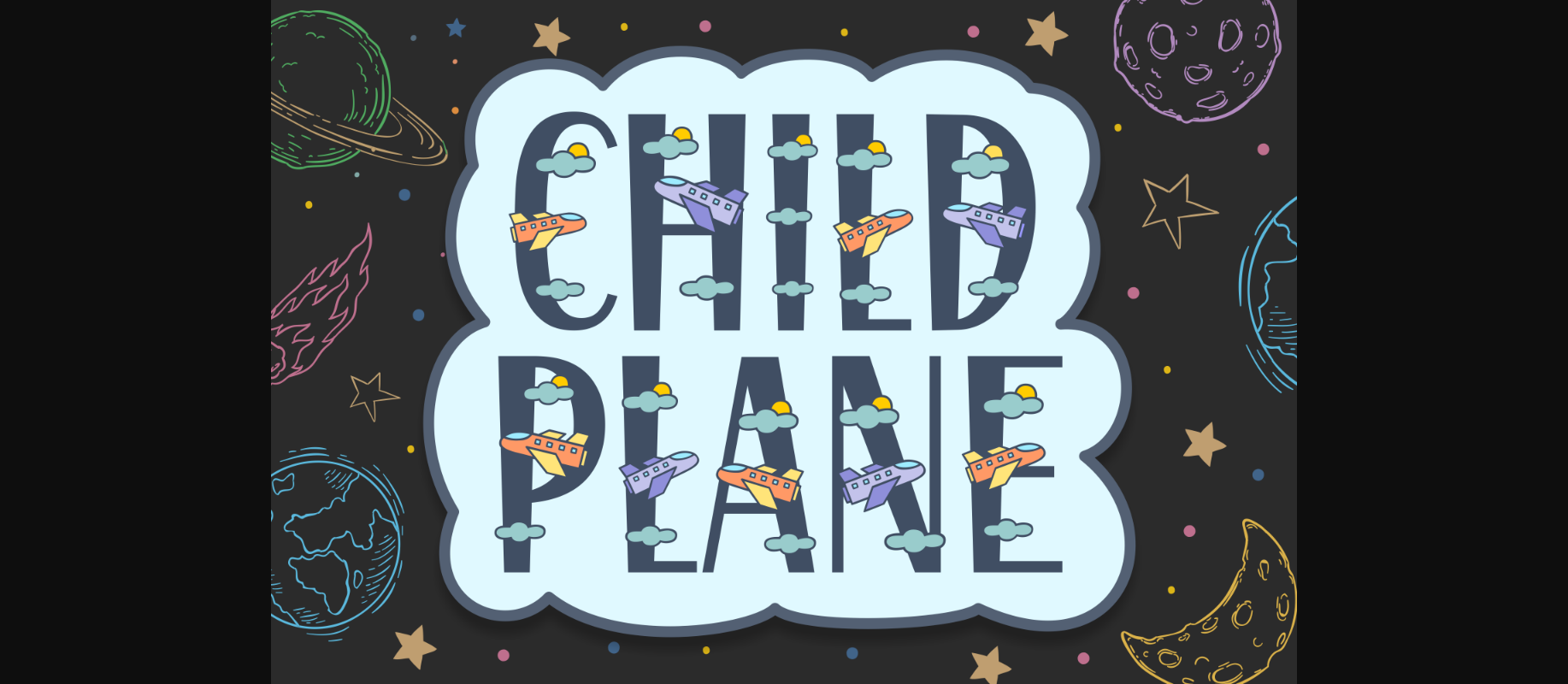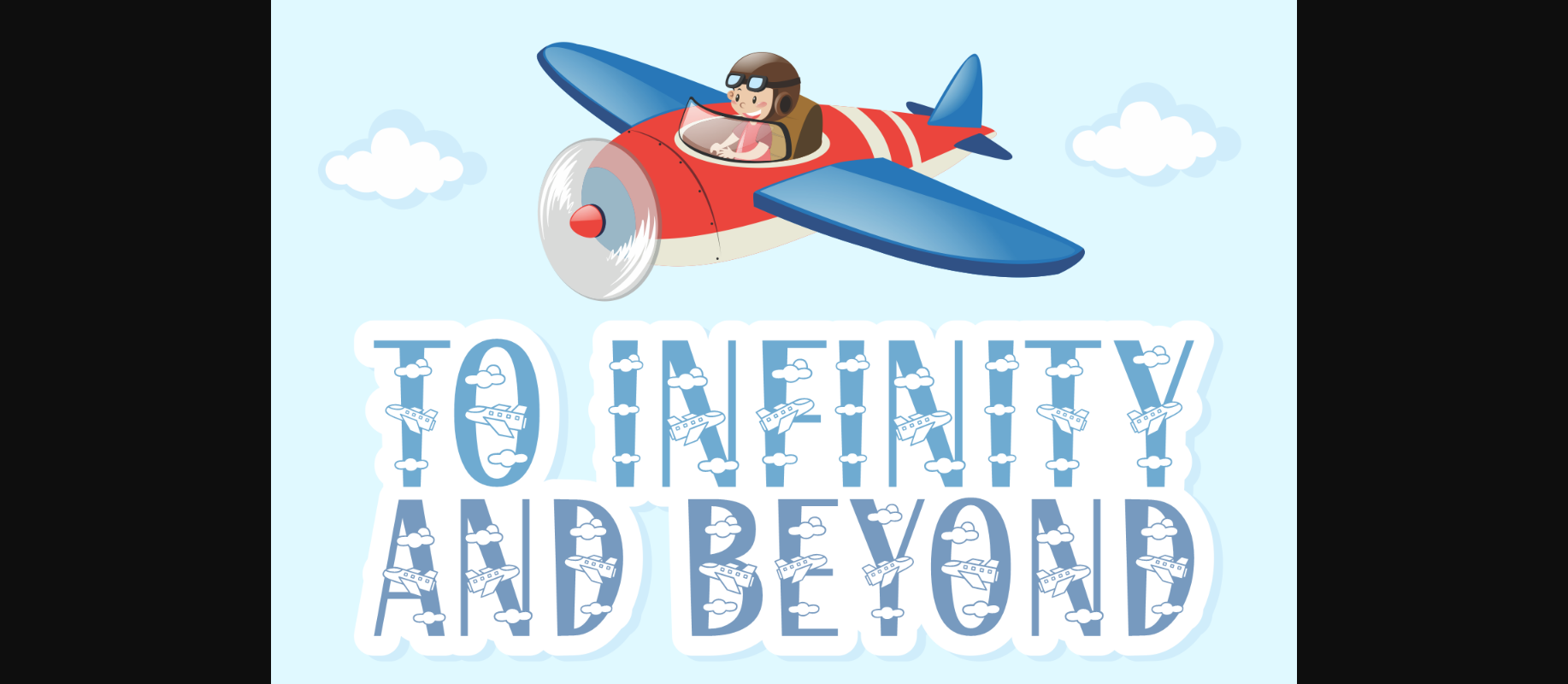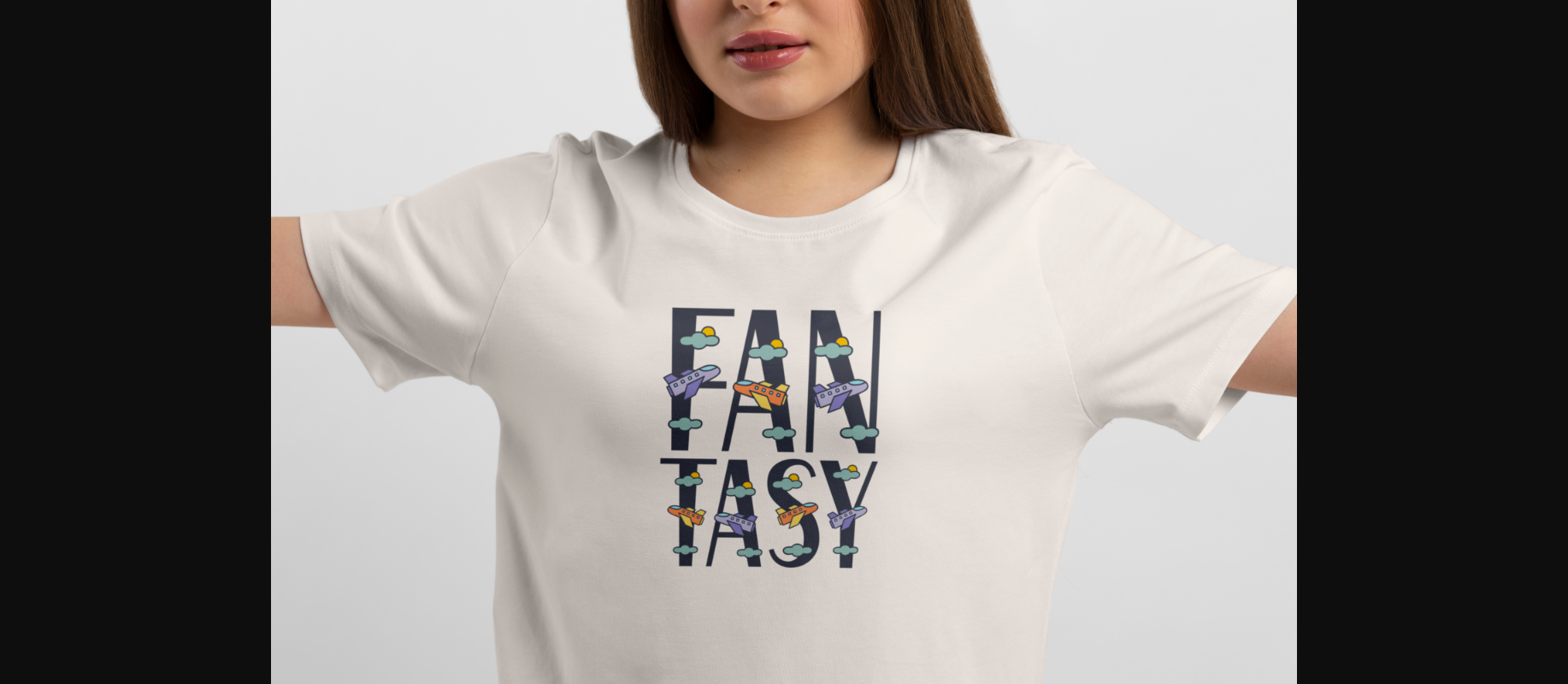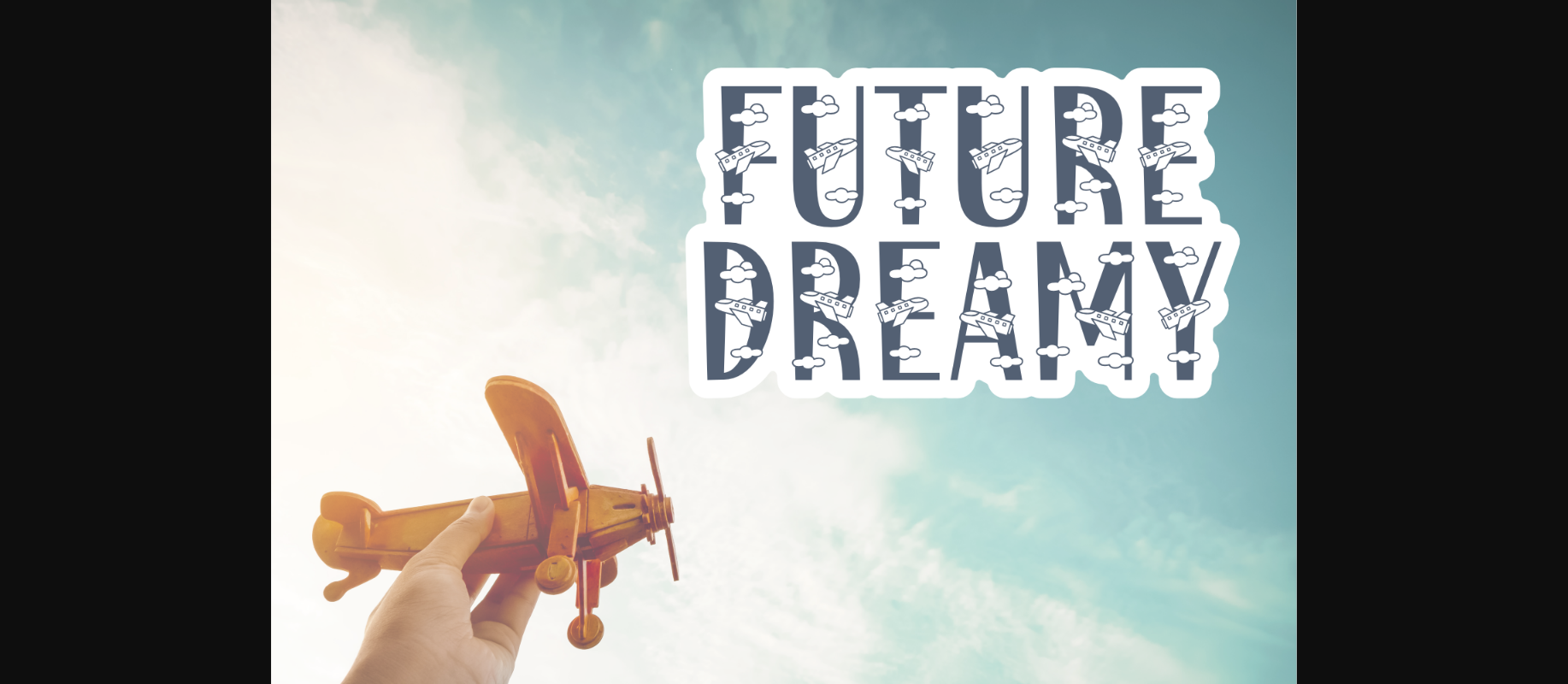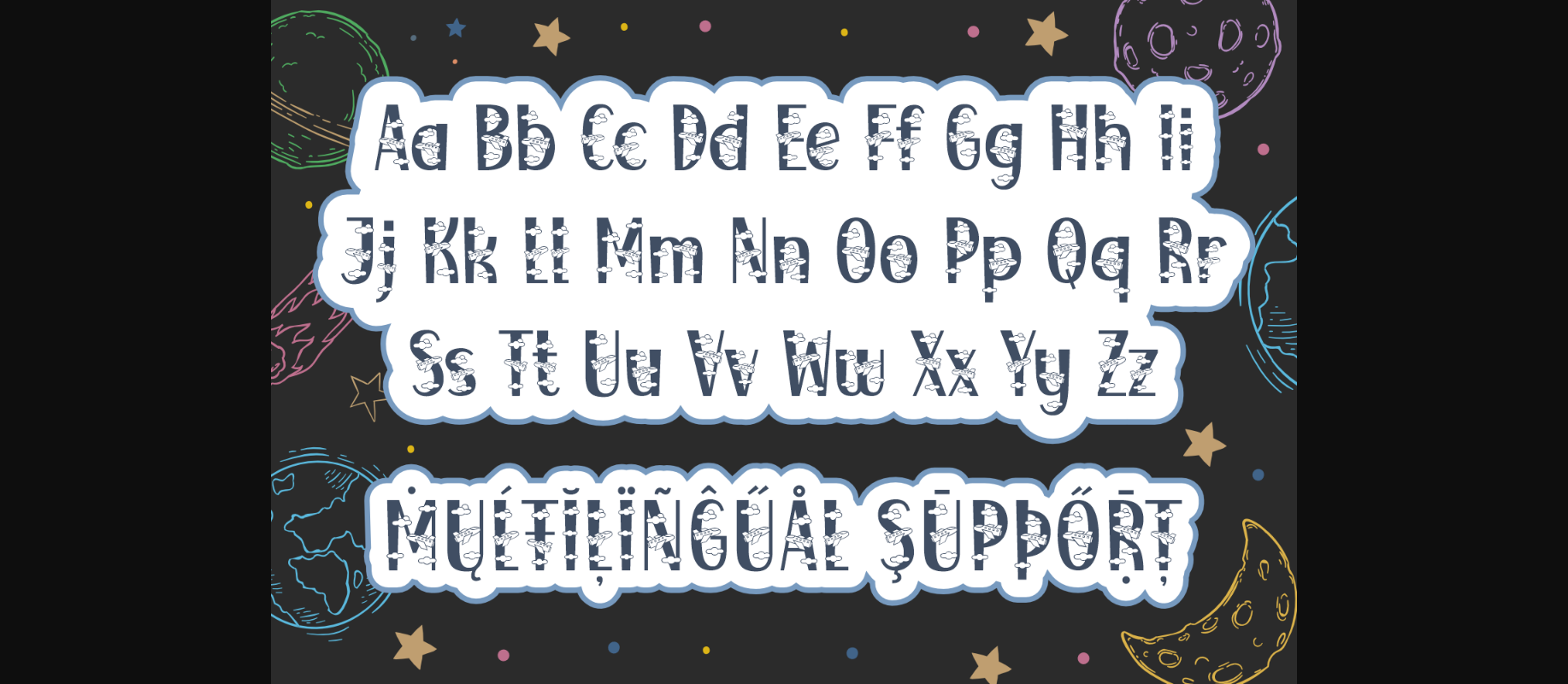
About Child Plane Font
Child Plane is a youthful and playful decorative font suitable for all children-related designs! Use it to create lovely storybooks, apparel designs, notebook covers, baby products, packaging, etc.